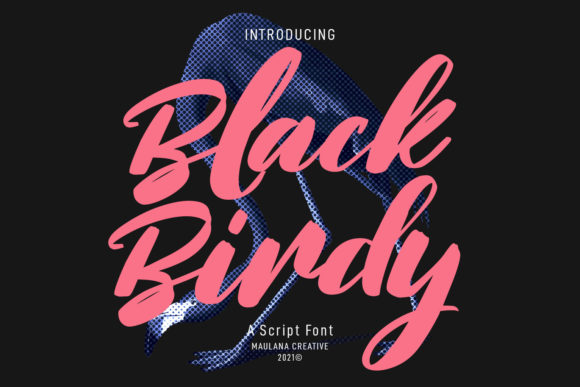
The Ultimate Guide to Black Birdy Font: Elevate Your Designs with Whimsy
I’ll never forget the time I was working on a project for a client who wanted a font that was both playful and elegant. I spent hours scouring the internet for the perfect match, but nothing seemed quite right. That was until I stumbled upon Black Birdy Font. This whimsical script font has been a game-changer for my designs, and I’m excited to share its magic with you. ✨
An Honest Review of Black Birdy Font
So, what makes Black Birdy Font so special? Let’s dive into the good stuff and a few quirks I’ve discovered. 🤔
- ✨ Unique and eye-catching design: Black Birdy Font stands out from the crowd with its relaxed, whimsical theme that’s perfect for a variety of projects.
- ✅ Highly versatile: Whether you’re working on a logo, invitation, or social media graphic, this font adapts seamlessly to different contexts.
- 💫 Elegant and playful: Black Birdy Font strikes the perfect balance between sophistication and playfulness, making it ideal for designs that need a touch of whimsy.
- ⚠️ Limited use in very formal contexts: While Black Birdy Font is incredibly versatile, it may not be the best fit for very formal or traditional designs, such as corporate reports or academic papers.
- 🤔 Some characters may require manual adjustment: Depending on the context, you might need to tweak certain characters to ensure optimal spacing and alignment.
The Backstory of Black Birdy Font
Black Birdy Font was designed with the intention of creating a unique, whimsical script that could add a touch of elegance and playfulness to any design. While the designer’s exact inspiration may be unknown, it’s clear that Black Birdy Font was crafted with love and attention to detail. ❤️
| What type of designs is Black Birdy Font best suited for? | Black Birdy Font is versatile and can be used for a variety of designs, including logos, invitations, social media graphics, and more. |
| Is Black Birdy Font suitable for body text? | While Black Birdy Font is beautiful, it’s best used for headlines or short paragraphs. For longer body text, a more traditional font might be more readable. |